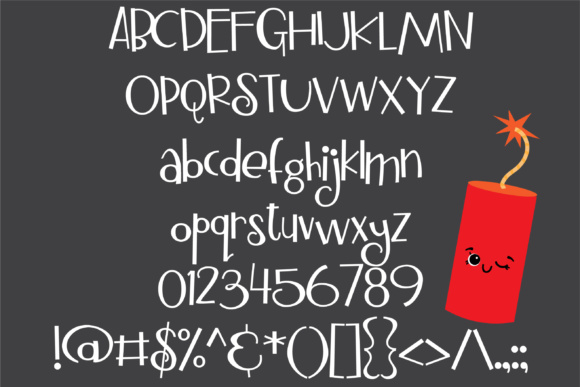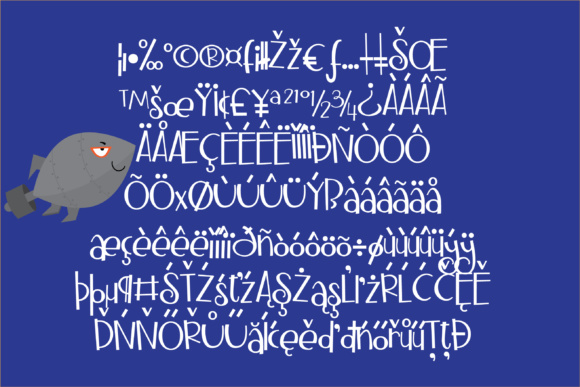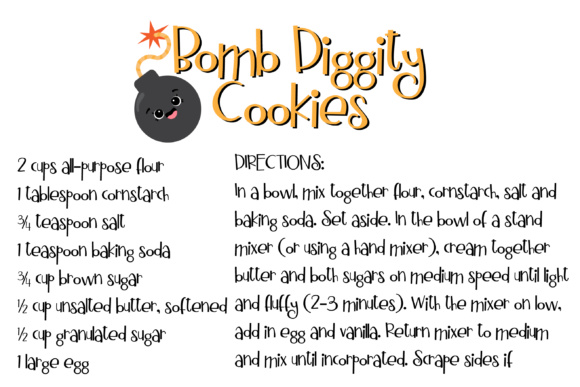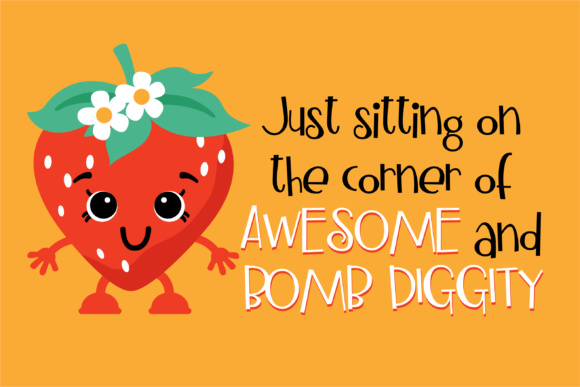
Introduction to Bomb Diggity Font
Do you ever find yourself staring at a blank page, desperately searching for the perfect font to bring your creative project to life? For designers, this moment of uncertainty can be a daunting task, especially when the stakes are high and the deadline is looming. But what if I told you that there’s a font that can make all the difference in the world? Say hello to the Bomb Diggity Font, a whimsical and fun font that’s sure to add a playful touch to any design.
Key Features of Bomb Diggity Font
- High-quality design for creative projects, offering a unique and eye-catching style.
- Transparent background, allowing for seamless integration with various design elements.
- Comes in a single weight, making it easy to use and style for various design projects.
- Resolution-independent, allowing for crisp and clear display on high-resolution screens.
- Perfect for use in digital design, including logos, graphics, and typography for websites, social media, and more.
Honest Review: Bomb Diggity Font
I recently had the chance to work with the Bomb Diggity Font, and I’m excited to share my thoughts with you. As a designer, I’m always on the lookout for high-quality design resources that can elevate my creative projects. This font definitely fits the bill.
One of the things that stood out to me was the transparent background, which made it easy to work with in my design software. I was able to seamlessly integrate the font into my project without any issues.
- High-quality design: The Bomb Diggity Font has a crisp, clean look that’s perfect for creative projects.
- Easy to use: The transparent background made it simple to work with, even for complex designs.
- Limited font styles: While the font itself is great, I would have liked to see more font styles and variations available.
- Not suitable for small text: I found that the font became a bit difficult to read when used in small text sizes.
Overall, I’m really impressed with the Bomb Diggity Font. While it’s not perfect, it’s a great addition to any designer’s toolkit. If you’re looking for a high-quality font for your creative project, I’d definitely recommend giving it a try.
For the best results, use the Bomb Diggity Font in conjunction with other high-quality design resources. Experiment with different font sizes, colors, and styles to create a unique look that suits your creative project. You can also use the font in combination with images and graphics to add depth and interest to your designs.
The Bomb Diggity Font is perfect for use in a variety of creative projects, including logos, social media graphics, and presentations. It’s also a great resource for designers who want to add a unique touch to their designs. The font is available for free download, making it a valuable addition to any design library.